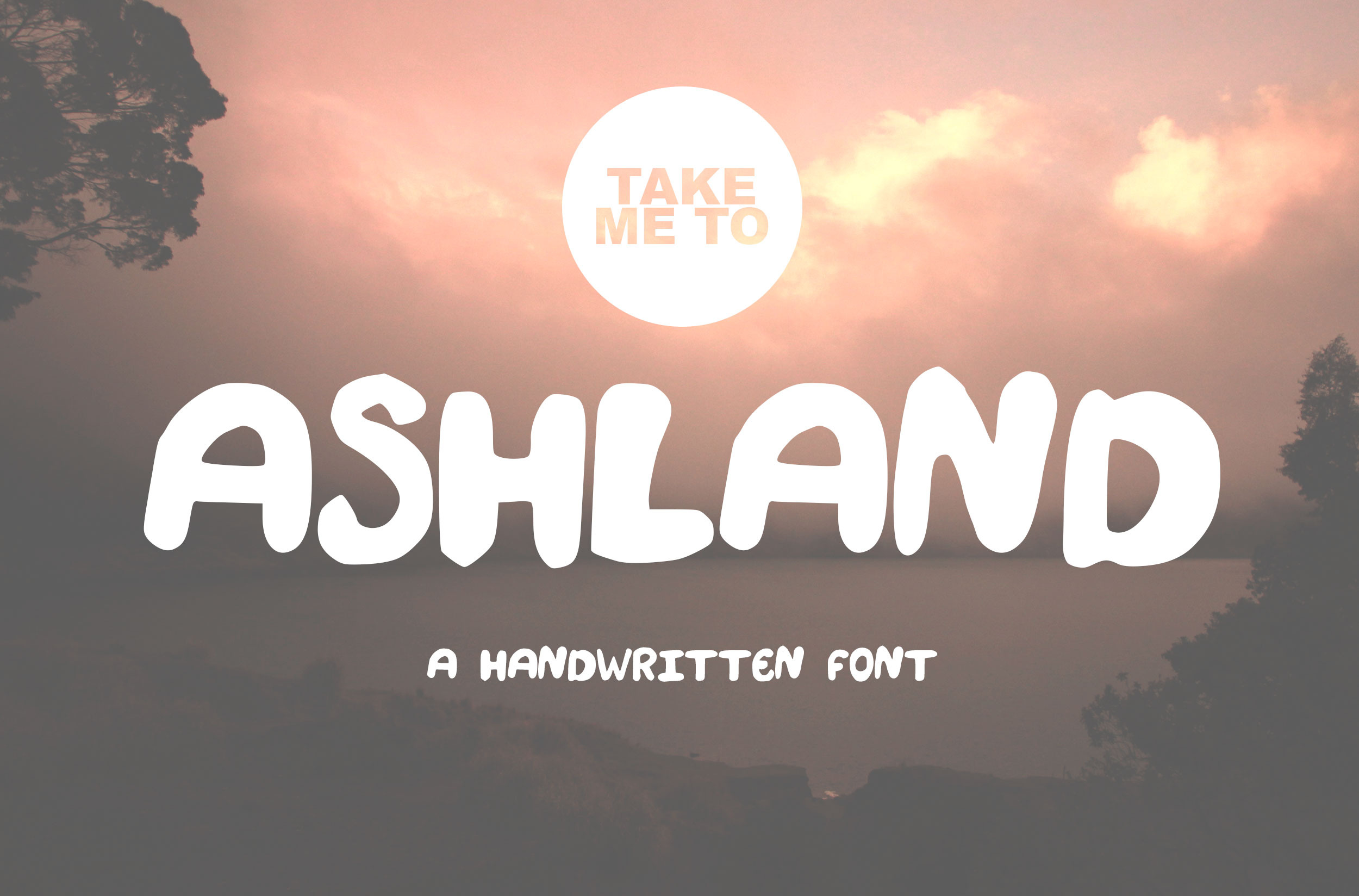
Ashland Handmade Font
A bulky font handmade for you. Perfect for ads, logos, brands and any sort of visual call of attention. Friendly for Social Networks and Product Branding.
This is my second handwritten typography, which I love because is quite simple, clean and friendly. Good Vibes are included for free :)